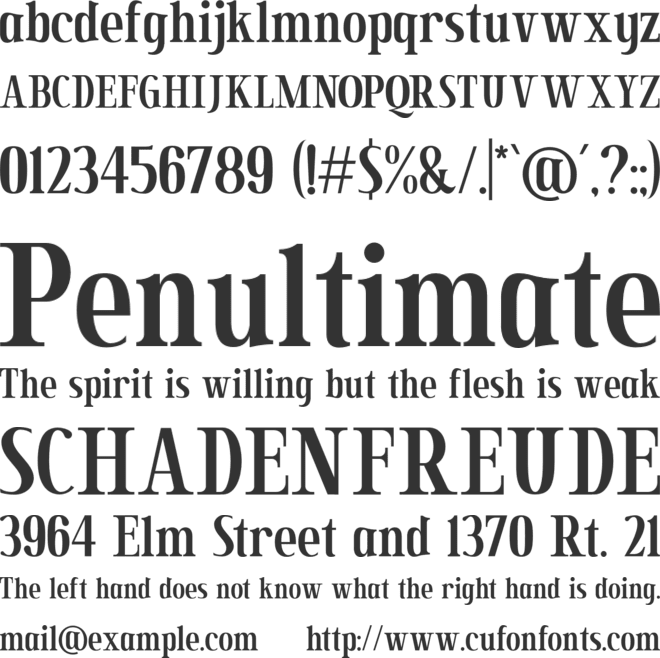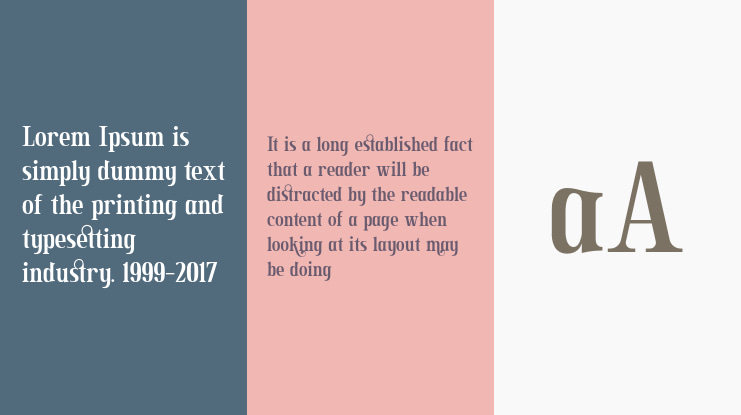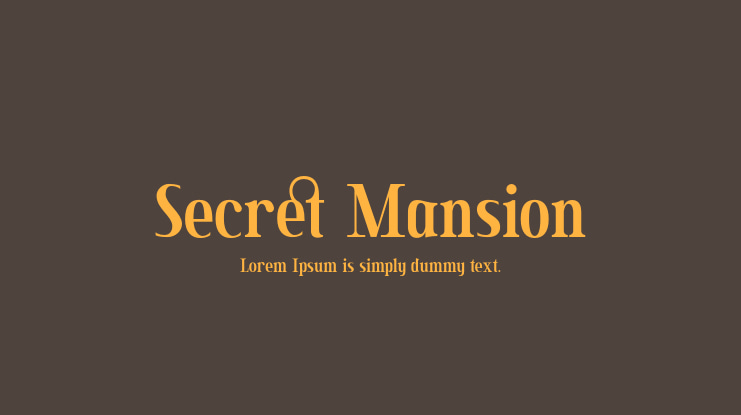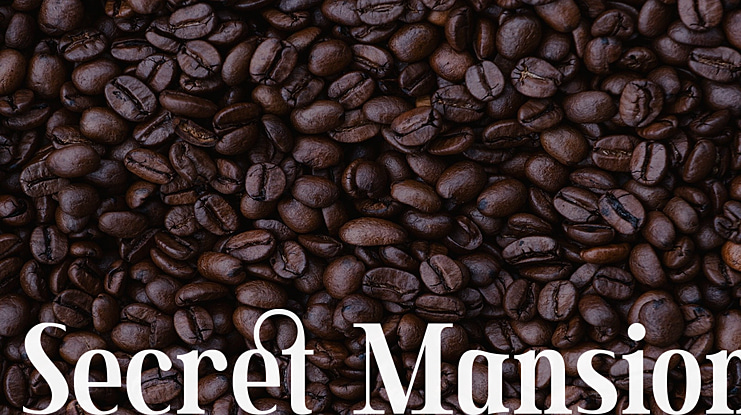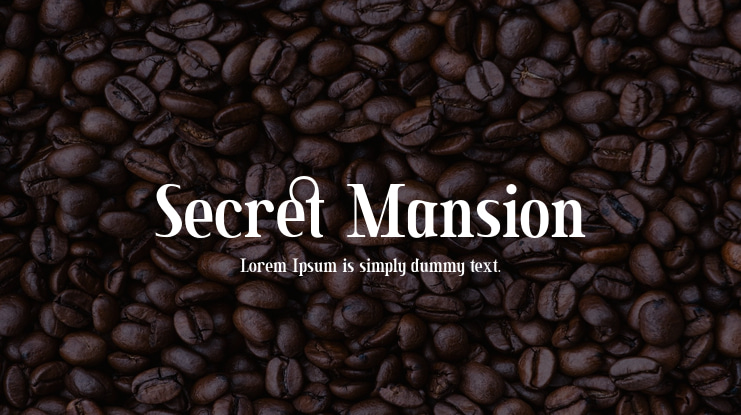
Secret Mansion Font
Secret Mansion is an elegant serif that blends traditional influences into a contemporary aesthetic. Elegantly crafted and easily be matched to an incredibly large set of projects. Use Secret Mansion to achieve an exquisite, yet subtle look and maximum versatility.Full Version Download Here :https://typefactory.co/product/secret-mansion-modern-elegant-serif/https://www.creativefabrica.com/product/secret-mansion/ref/501262/